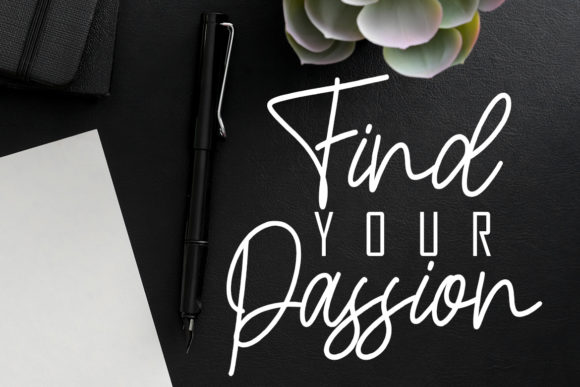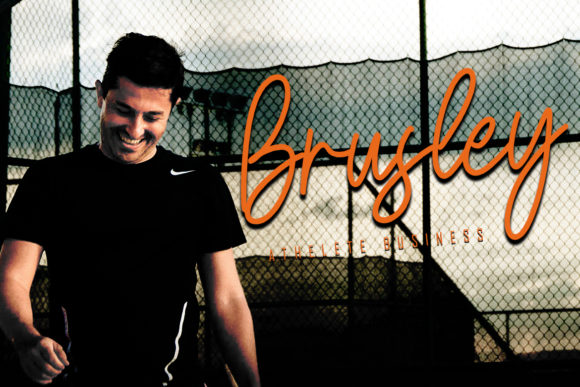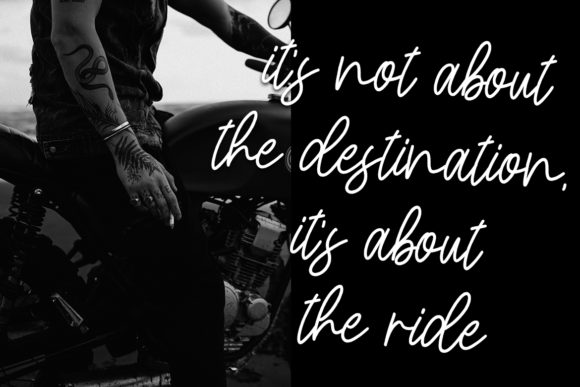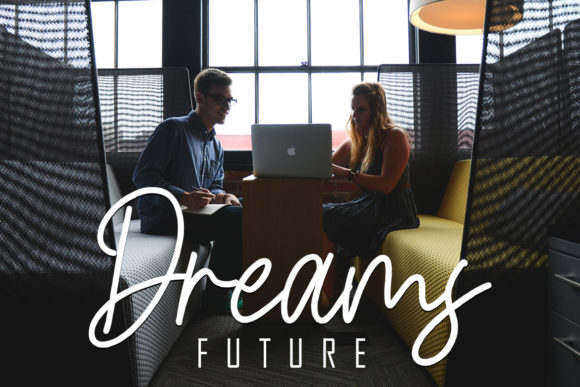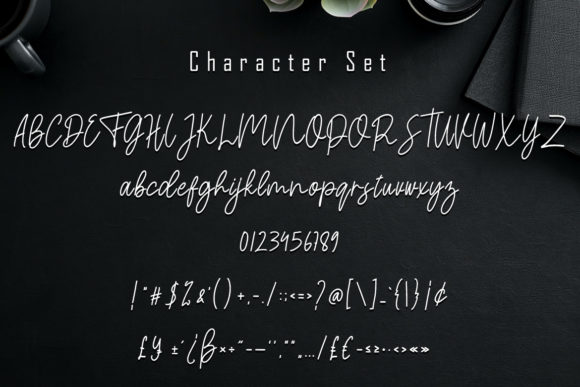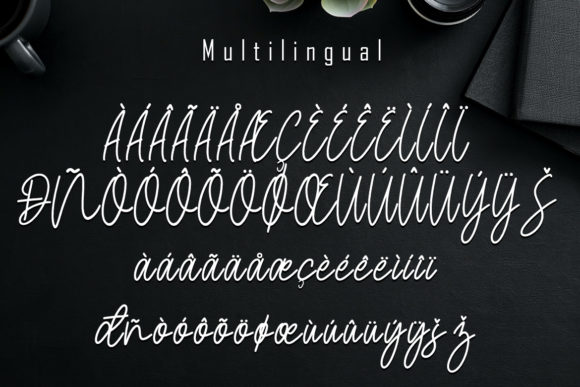
Dushem Font: The Ultimate Choice for Designers and Crafters
Are you tired of using the same old fonts in your designs? Look no further than Dushem Font, a simple and relaxed handwritten font that’s perfect for adding a personal touch to your projects. With its natural and unique style, Dushem Font is incredibly versatile and can be used in a wide range of designs, from rustic and vintage to modern and trendy.
The Characteristics of Dushem Font
Dushem Font is a handwritten font that’s designed to look effortless and casual. Its relaxed style makes it perfect for designs that require a friendly and approachable tone. The font’s natural and unique style is achieved through its subtle imperfections and irregularities, which give it a human touch that’s hard to replicate with more formal fonts.
The Benefits of Using Dushem Font
So why choose Dushem Font for your designs? Here are just a few benefits of using this amazing font:
- Versatility: Dushem Font is incredibly versatile and can be used in a wide range of designs, from rustic and vintage to modern and trendy.
- Uniqueness: Dushem Font has a natural and unique style that’s sure to make your designs stand out from the crowd.
- High-quality: Dushem Font is a high-quality font that’s designed to look great in any design.
How to Use Dushem Font in Your Designs
Using Dushem Font in your designs is incredibly easy. Here are a few tips to get you started:
- Pair it with other fonts: Dushem Font pairs perfectly with other fonts, such as sans-serif fonts like Arial or Helvetica.
- Use it for headings and titles: Dushem Font is perfect for headings and titles, where its unique style can really shine.
- Add some texture: Adding some texture to your design can really make Dushem Font pop. Try adding a subtle background image or texture to give your design some depth.
Inspiration for Using Dushem Font
Still not sure how to use Dushem Font in your designs? Here are a few ideas to get you started:
- Rustic wedding invitations: Dushem Font is perfect for rustic wedding invitations, where its natural and unique style can add a personal touch.
- Vintage posters: Dushem Font is great for vintage posters, where its distressed look can really add to the overall aesthetic.
- Modern branding: Dushem Font can also be used in modern branding, where its unique style can help to set your brand apart from the competition.
In conclusion, Dushem Font is a simple and relaxed handwritten font that’s perfect for designers and crafters who want to add a personal touch to their projects. With its natural and unique style, Dushem Font is incredibly versatile and can be used in a wide range of designs. So why not give it a try and see what amazing designs you can create?